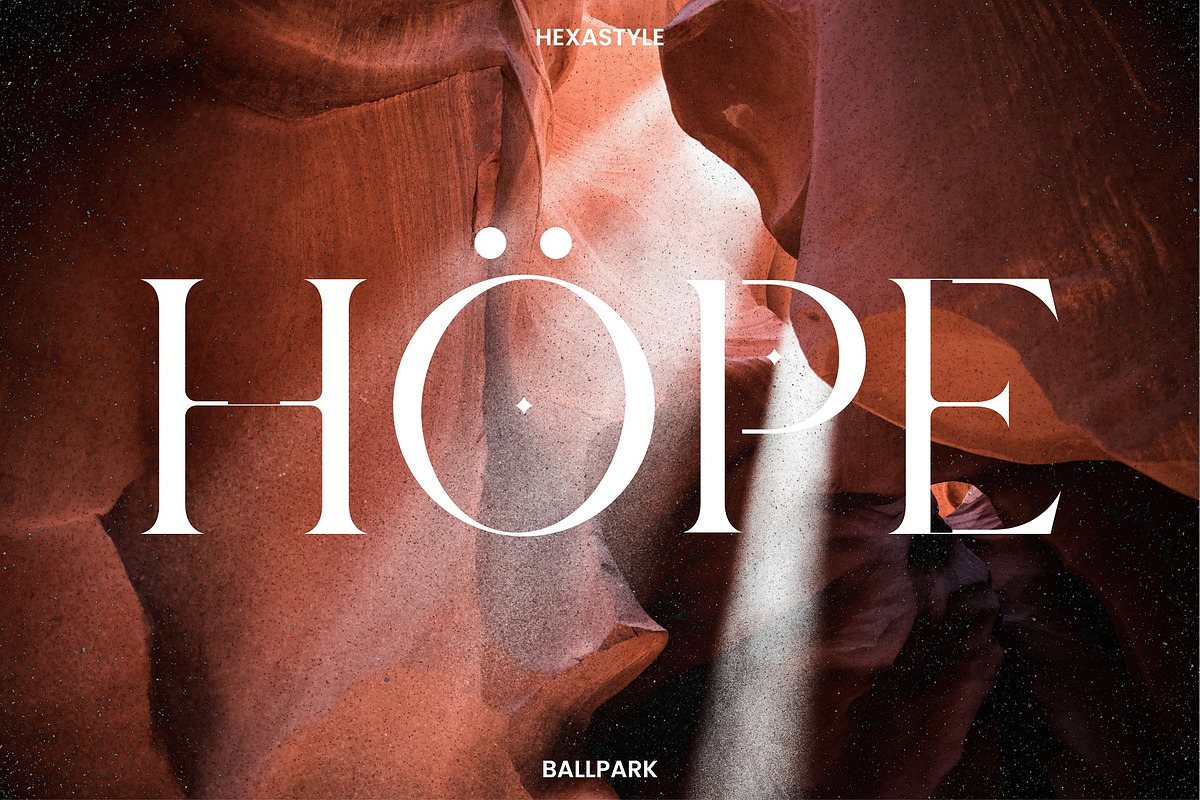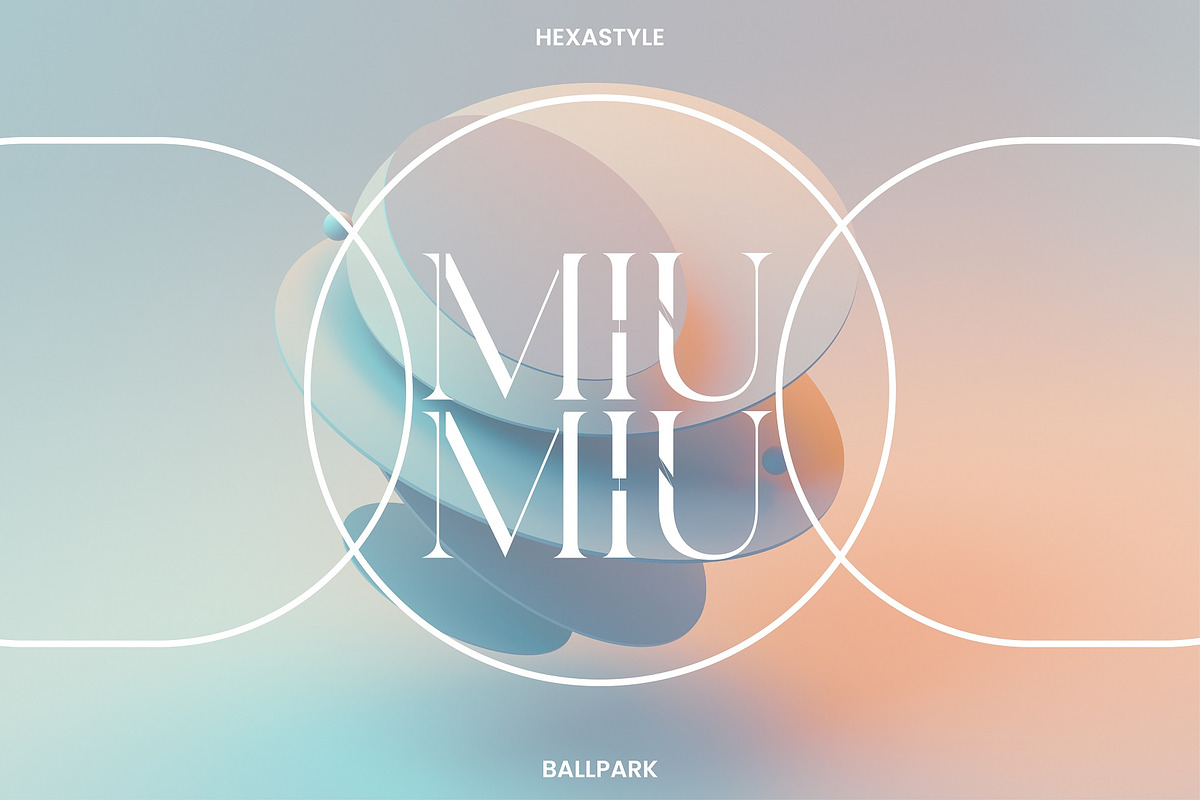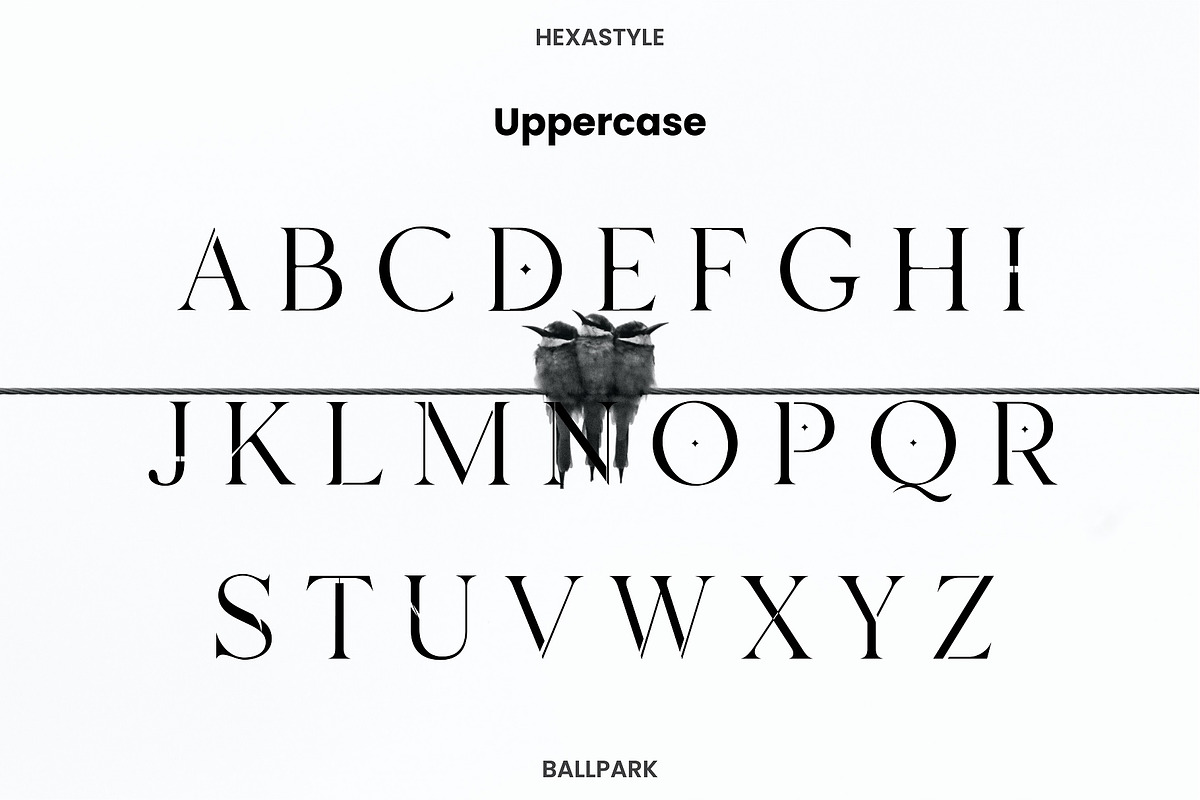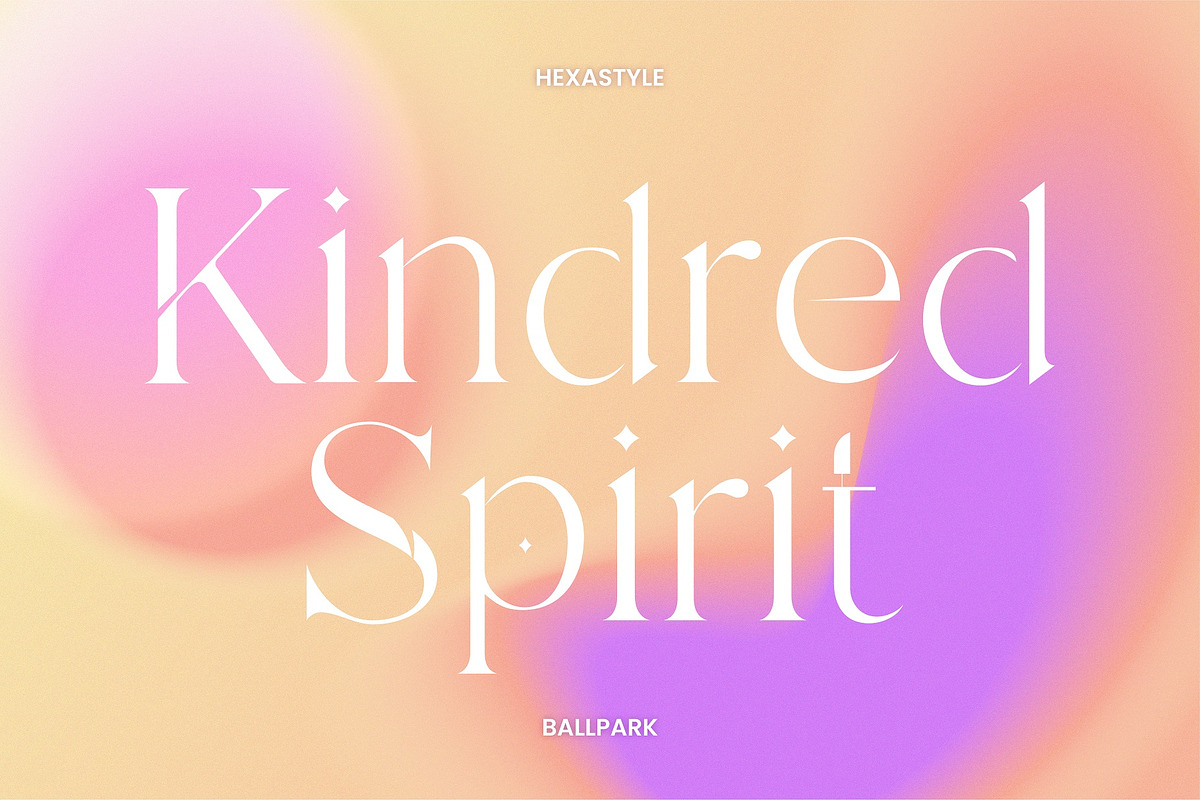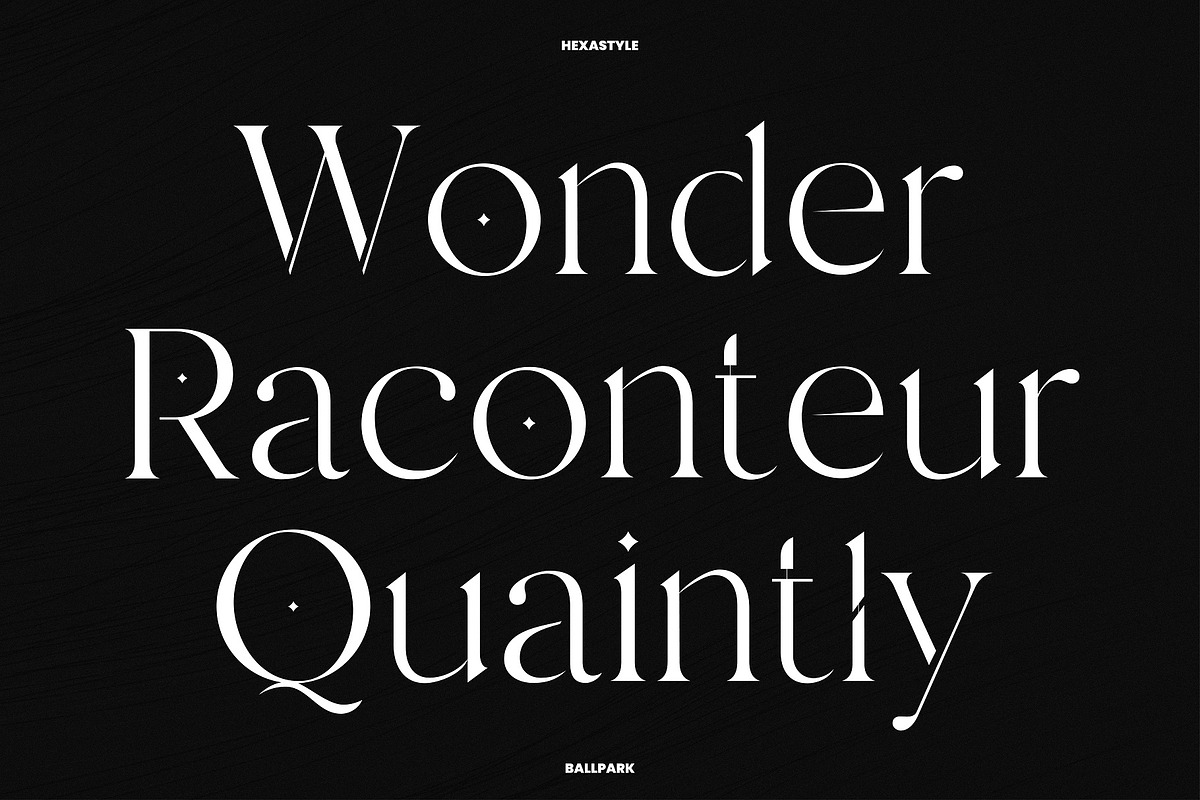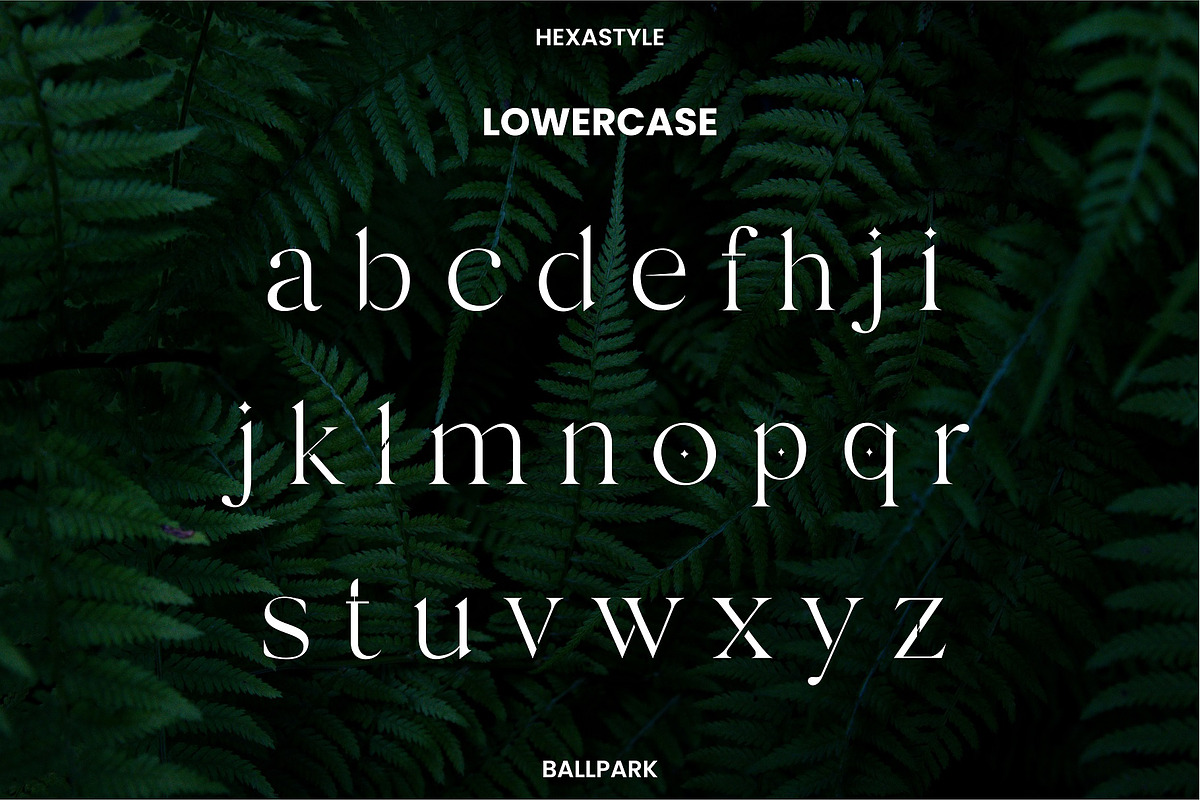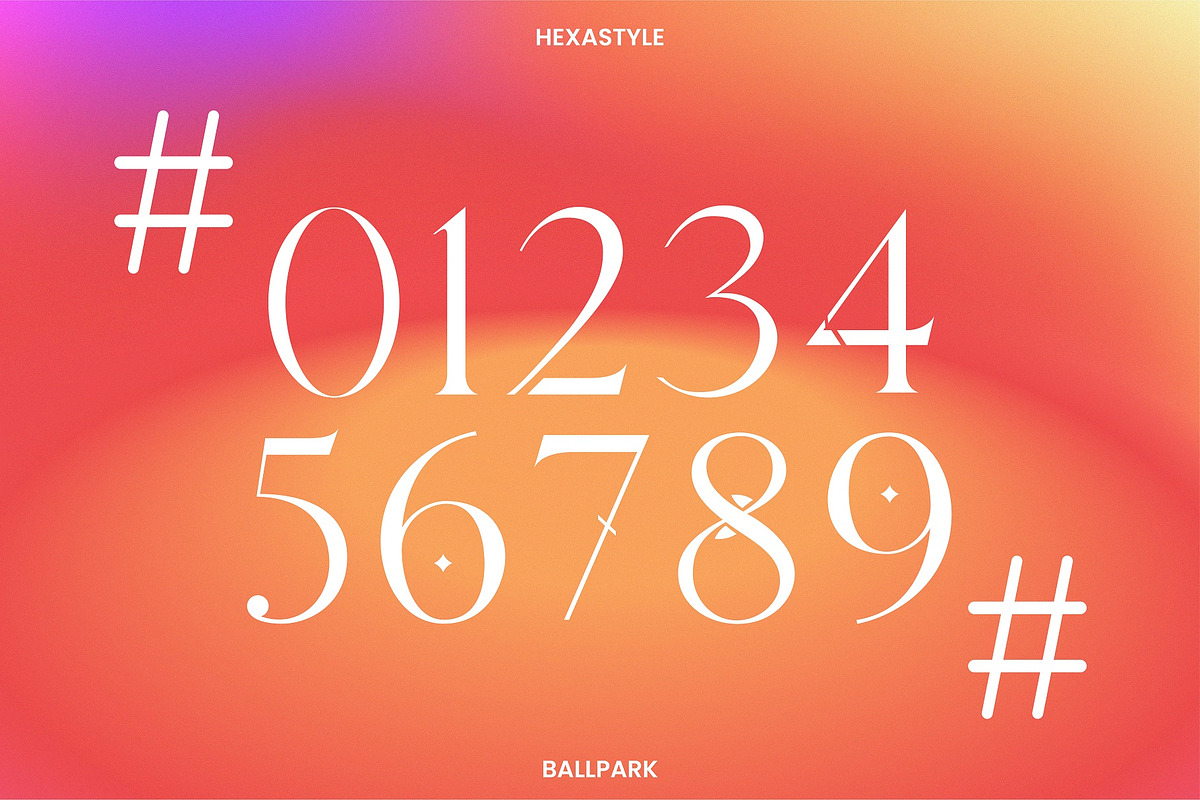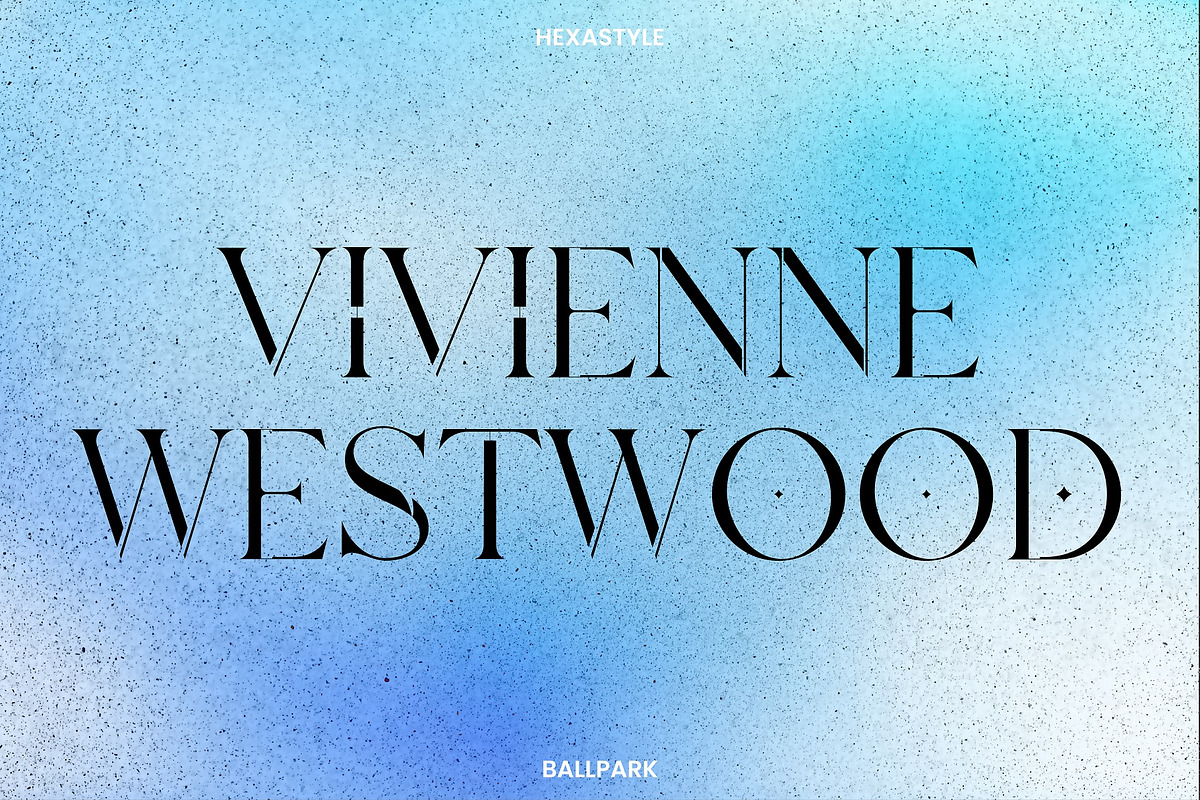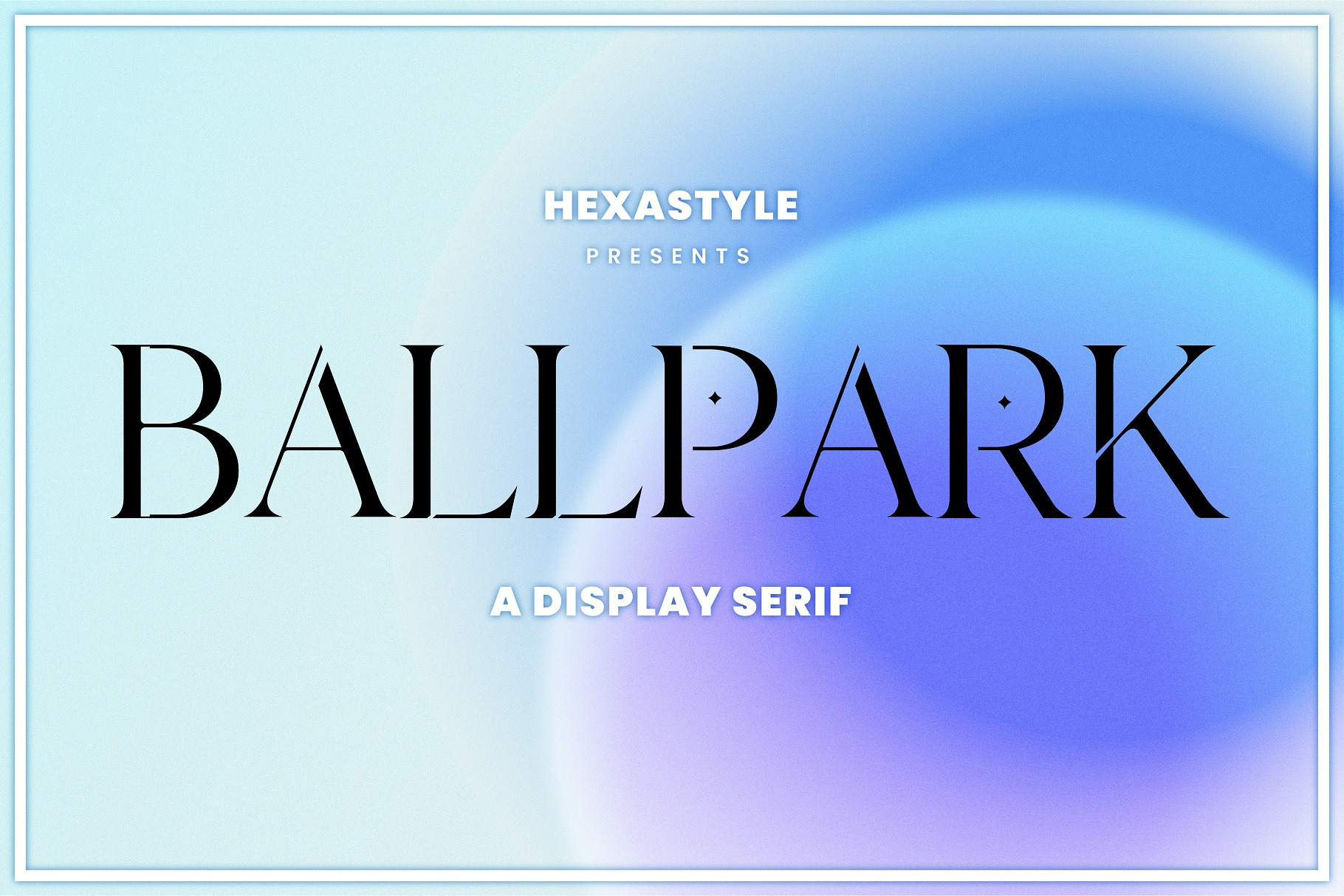
BALLPARK MODERN FONT
BALLPARK is a playful yet elegant serif. It teases your eyes with its curves yet still able to maintain its classy composure. Perfect for anything your creativity takes you.